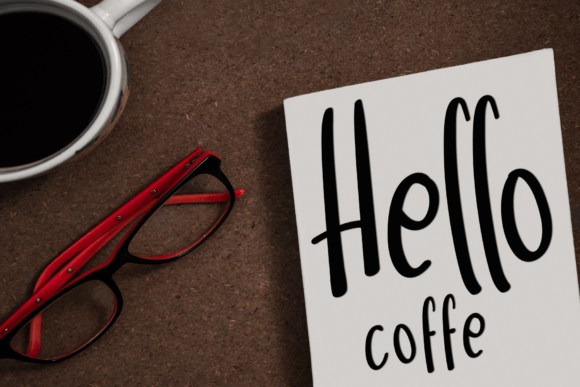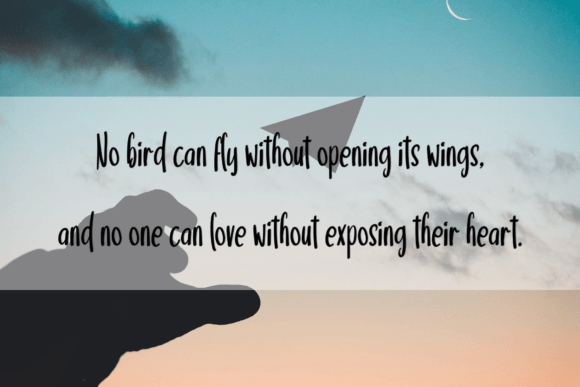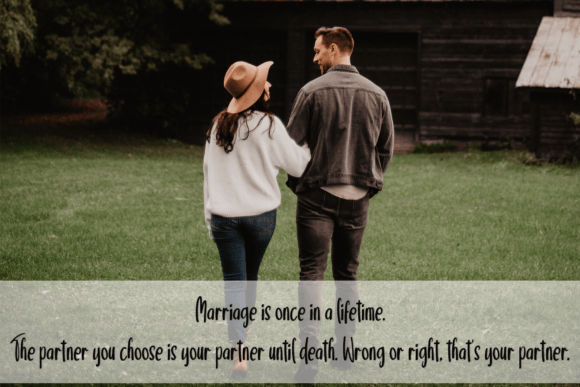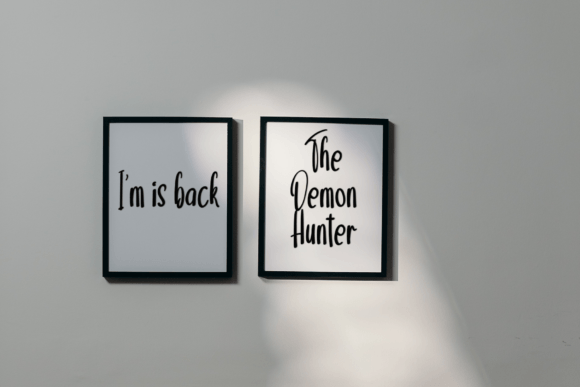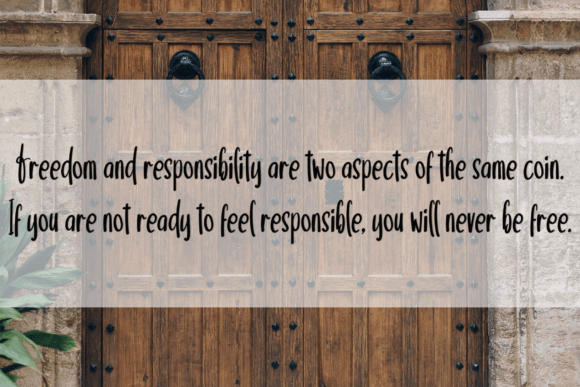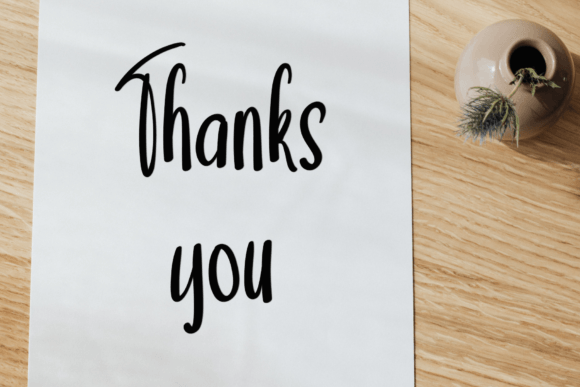
Discover the Charm of Farm House Font: Elevate Your Designs with a Cool, Simple, and Playful Handwritten Style
Are you a designer or crafter looking for a font that can add a touch of personality to your creative projects? Look no further than the Farm House Font! This cool, simple, and playful handwritten font is incredibly versatile and can elevate a wide range of designs to new heights. In this article, we’ll explore the features and benefits of Farm House Font, and show you how to make the most of this amazing font in your designs.
What is Farm House Font?
Farm House Font is a modern, handwritten font that exudes a sense of simplicity and playfulness. Its clean lines, rounded edges, and casual feel make it perfect for a wide range of design applications, from rustic and vintage-inspired projects to modern and minimalist designs. This font is designed to be highly legible and versatile, making it an excellent choice for designers and crafters who want to add a personal touch to their work.
Key Features of Farm House Font
- Cool and Playful Style: Farm House Font has a unique and charming personality that adds a touch of whimsy to any design.
- Simple and Highly Legible: The font’s clean lines and rounded edges make it easy to read, even at small sizes.
- Incredibly Versatile: Farm House Font can be used in a wide range of design applications, from rustic and vintage-inspired projects to modern and minimalist designs.
- Handwritten Style: The font’s handwritten style gives it a personal and authentic feel that’s perfect for adding a touch of personality to your designs.
Benefits of Using Farm House Font
So why choose Farm House Font for your design projects? Here are just a few benefits of using this amazing font:
- Adds Personality to Your Designs: Farm House Font’s unique and playful style can help your designs stand out from the crowd and add a touch of personality to your work.
- Perfect for a Wide Range of Projects: Whether you’re working on a rustic and vintage-inspired project or a modern and minimalist design, Farm House Font is a great choice.
- Easy to Read and Legible: The font’s clean lines and rounded edges make it easy to read, even at small sizes.
- Great for Branding and Marketing Materials: Farm House Font’s playful and charming style makes it perfect for use in branding and marketing materials, such as logos, brochures, and social media graphics.
How to Use Farm House Font in Your Designs
Ready to start using Farm House Font in your designs? Here are a few tips to get you started:
- Pair it with Other Fonts: Farm House Font pairs well with a wide range of fonts, from modern and sans-serif fonts to traditional and serif fonts.
- Use it in Headings and Titles: Farm House Font’s playful and charming style makes it perfect for use in headings and titles.
- Add it to Your Branding and Marketing Materials: Use Farm House Font in your branding and marketing materials, such as logos, brochures, and social media graphics, to add a touch of personality to your brand.
- Experiment with Different Colors and Textures: Farm House Font looks great in a wide range of colors and textures, so don’t be afraid to experiment and find the perfect combination for your design.